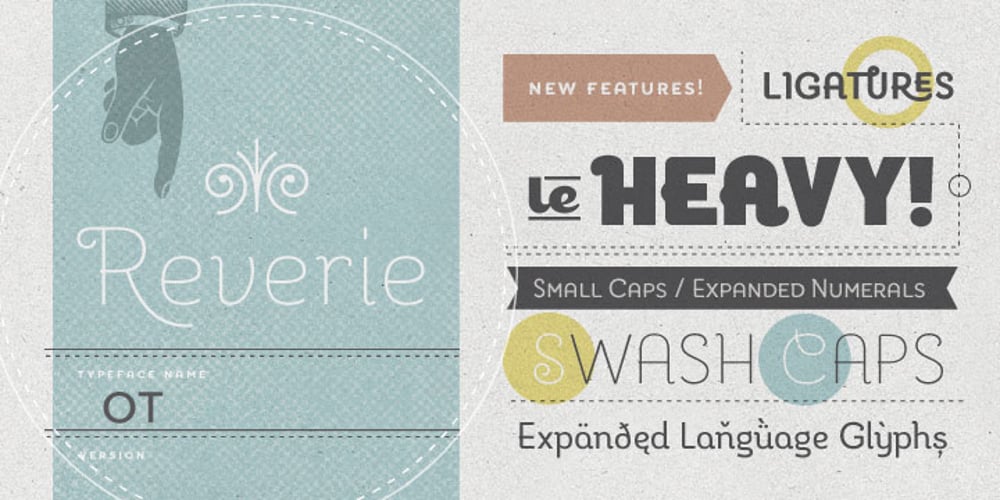
Reverie OT
Reverie OT font
Reverie OT Font Family was designed by Galen Lawson and published by District. Reverie OT contains 4 styles and family package options. Reverie is a cheerful band of letters that bounce across the page and get together to create words in four weights. Generous spacing and a modest x-height project an airy typeface that’s open but not frail. Quirky without being too whimsical. Use the regular weight for surprisingly readable text or put the light and heavy weights to use for decorative headlines and titles. Reverie OT is the follow-up to the popular Reverie. This version comes loaded with new features: ligatures, small caps, swash caps, a larger numeral set, more language glyphs, and a fourth, heavy weight. This all adds up to a vastly more functional and flexible family of fonts.